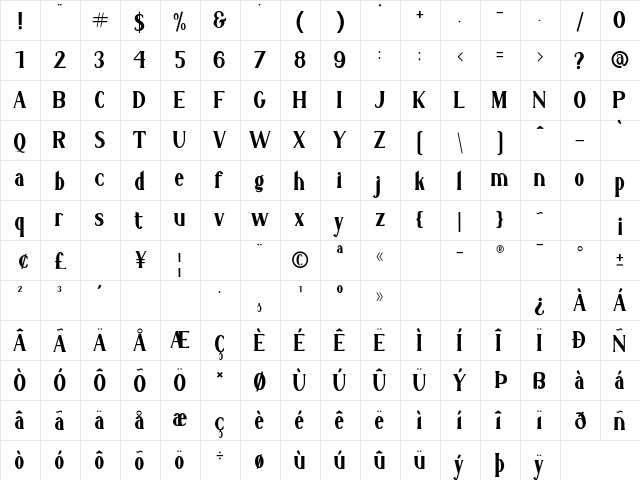
Charlotte Giselle Regular
| Foundry | Display Studio |
| Designer | Display Studio |
Design Context for Charlotte Giselle Typeface
Charlotte Giselle takes a measured approach to typography — its balanced proportions and neutral character make it a reliable workhorse for both digital and print work.